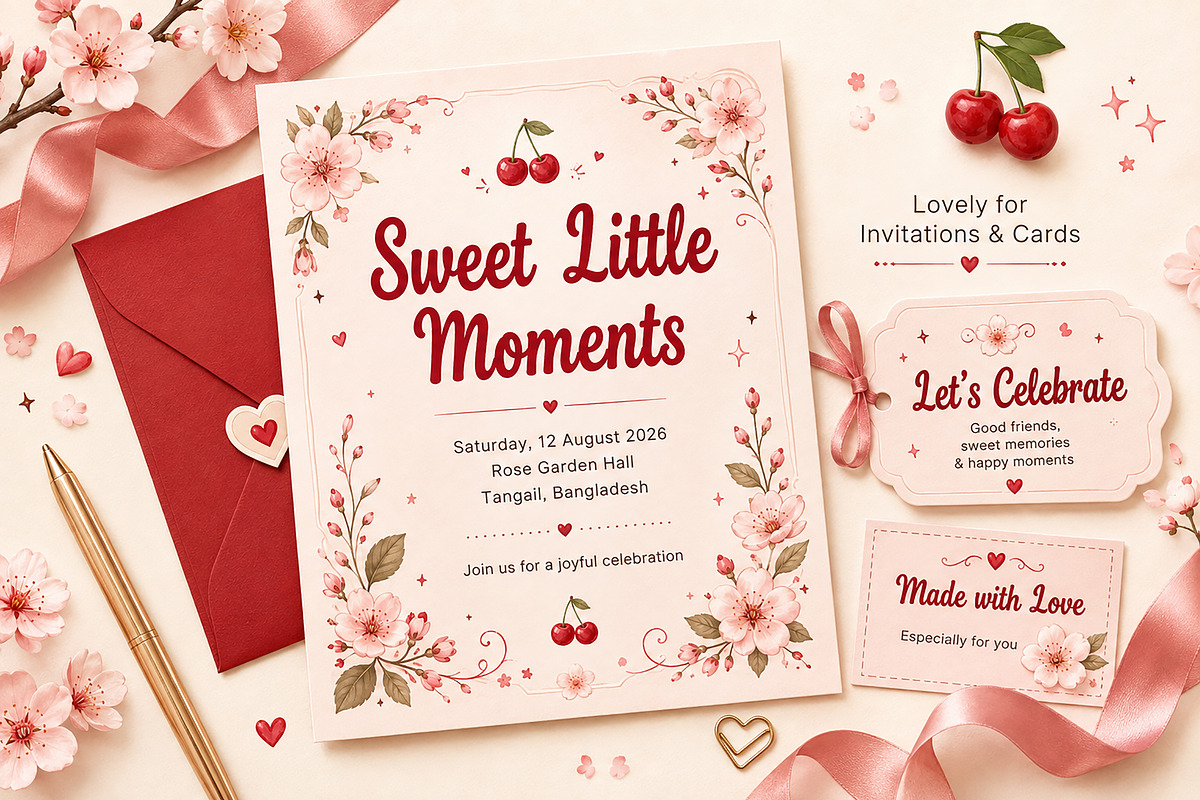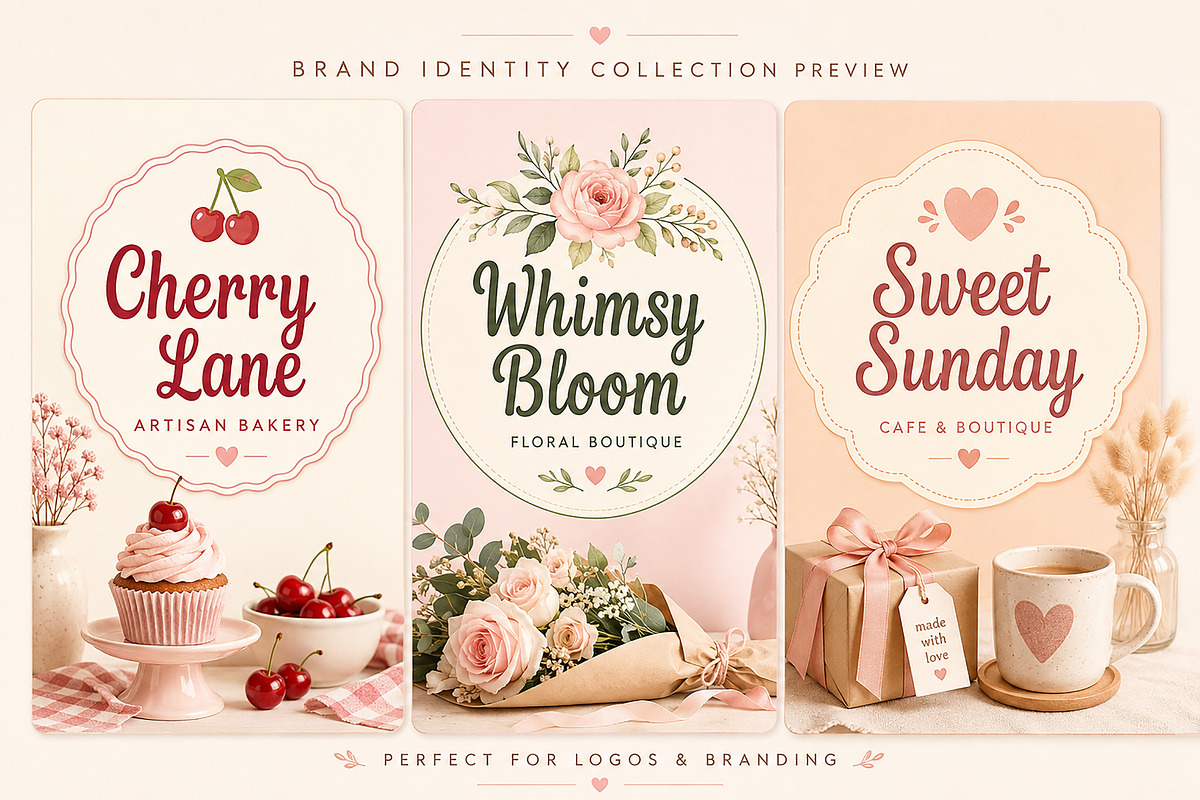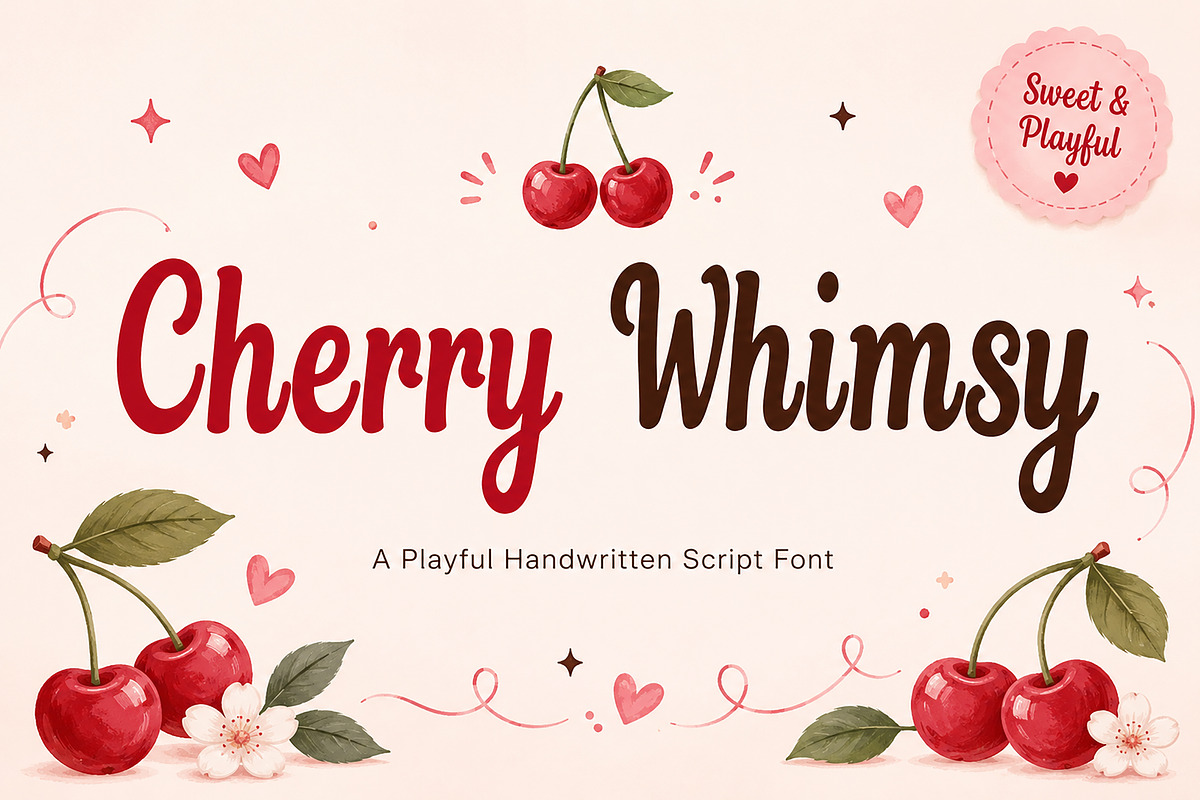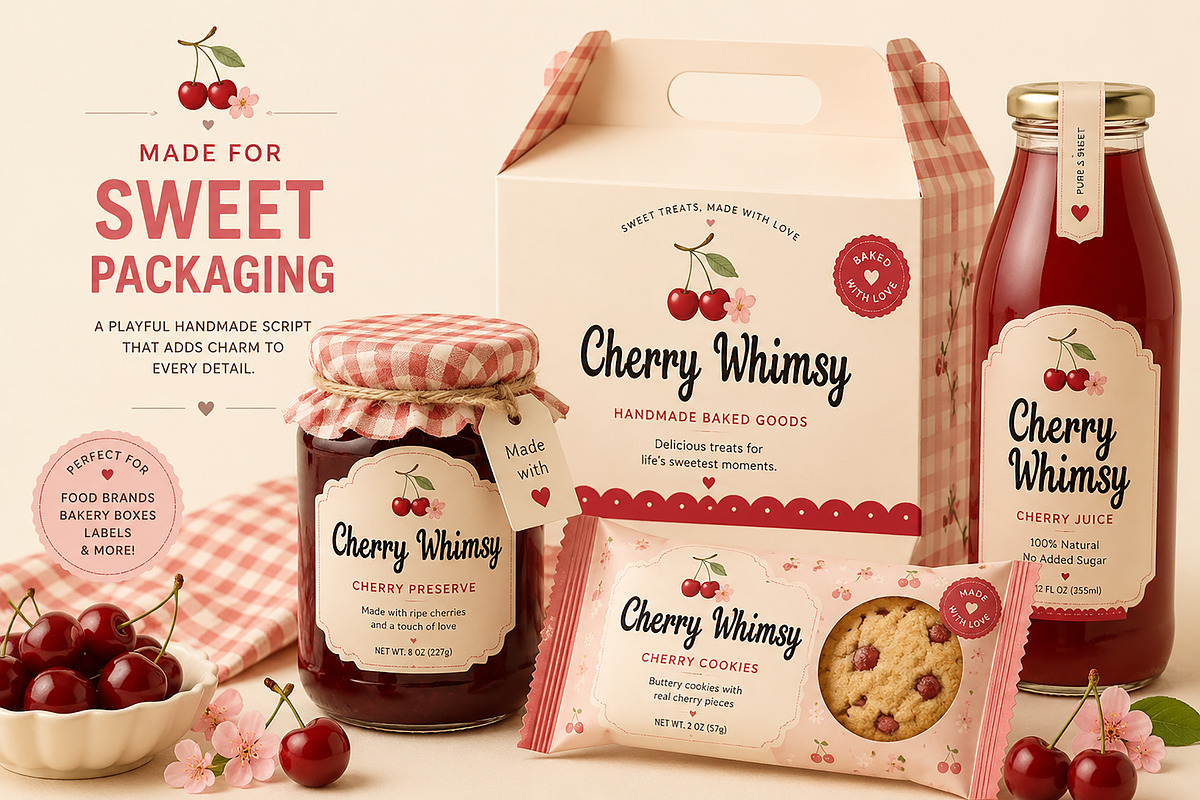
Cherry Whimsy
Cherry Whimsy – Playful Handwritten Script Font
Meet Cherry Whimsy, a playful handwritten script font created to add sweetness, personality, and a charming handmade touch to your designs.
With its bold curves, whimsical letterforms, and friendly appearance, Cherry Whimsy is perfect for projects that need a fun, feminine, and cheerful style. It works beautifully for bakery branding, café logos, product packaging, invitations, greeting cards, handmade businesses, social media graphics, and many other creative projects.
Use Cherry Whimsy to create eye-catching logos, charming headlines, memorable product labels, and beautiful celebration designs. Its warm and playful personality makes it especially suitable for sweet food brands, boutiques, children’s products, feminine businesses, and handmade collections.
Logos and brand identities
Bakery and café branding
Food and product packaging
Labels and stickers
Wedding invitations
Birthday and baby shower cards
Greeting cards
Boutique and handmade branding
Social media posts
Posters and promotional designs
T-shirts and merchandise
Craft and Cricut projects
Add a sweet, playful, and memorable personality to your next project with Cherry Whimsy!
Cherry Whimsy is a playful handwritten script font with bold, charming, and whimsical letterforms. Perfect for logos, bakery branding, packaging, invitations, greeting cards, boutiques, handmade products, and social media designs.